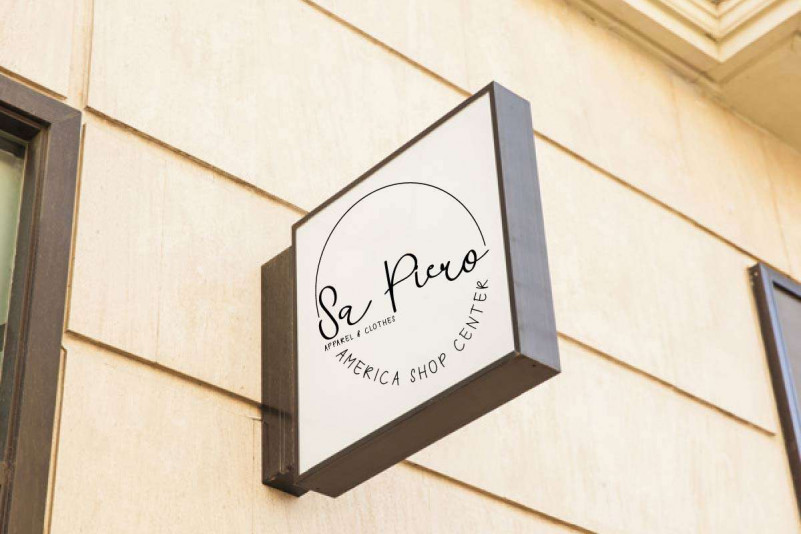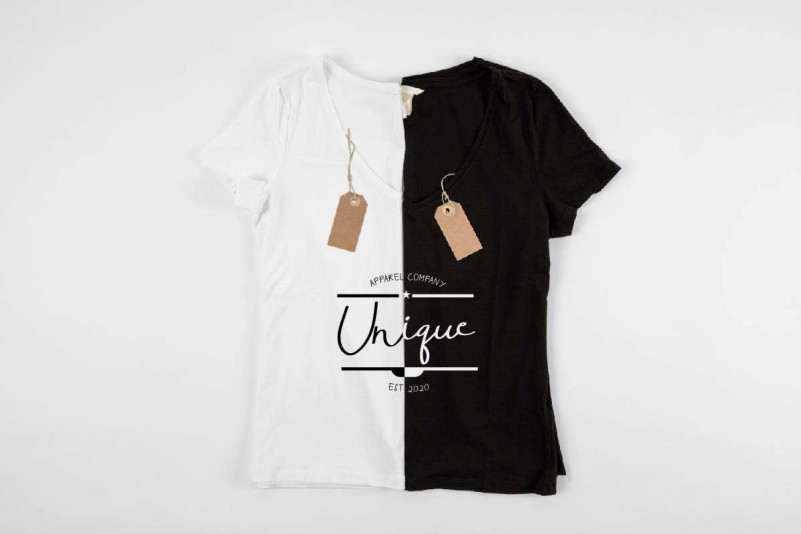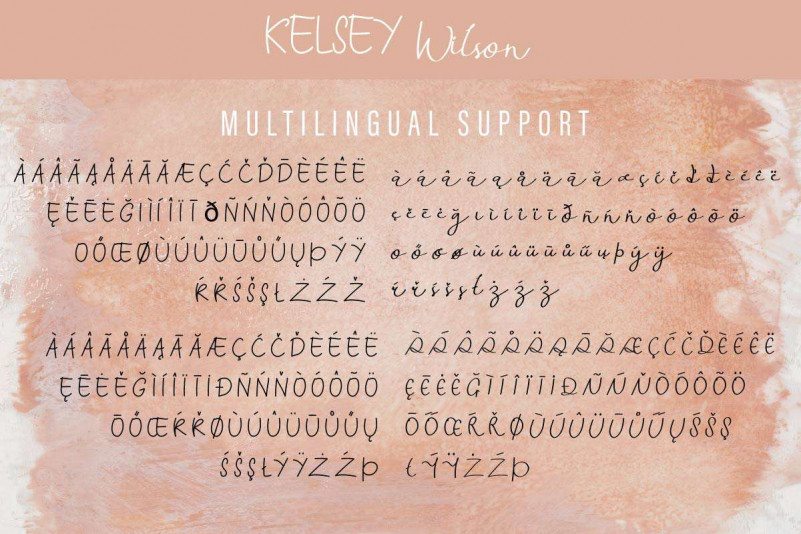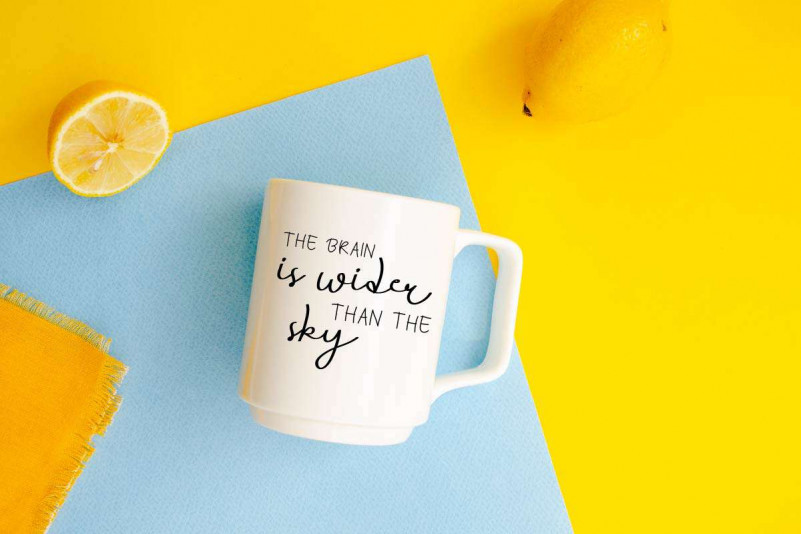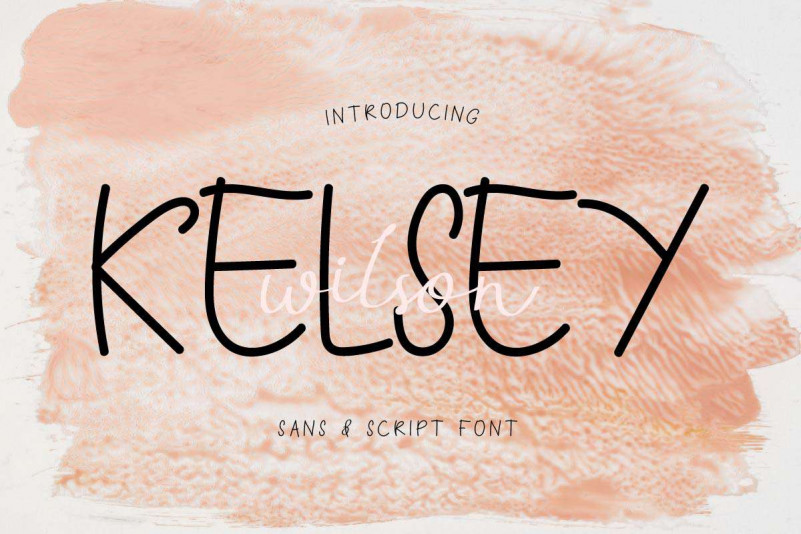
Kelsey Wilson Font Duo
Please welcome! Kelsey Wilson Font Duo This is our newest font from two of our lovely artists : Yasri and Suci. This is a duo typeface, handcrafted from our Studio. Situated here in Garut and Bandung, Indonesia.
Kelsey Wilson Font Duo is an exclusive duo typeface with unique and elegant style. The typeface has a stunning characters set, perfectly kerned and spaced. The style character of this font is elegant, stylish, sophisticated and handwriting style. Kelsey Wilson Font Duo has two styles font : Sans Display and Handwriting Script. This typefaces will be great for any projects including : branding, logo, stationery, business card, signage, flyer, brochure etc. Many all industries will be match for this typefaces: wedding, events, real estate, architect, law firm, florist, gardening, makeup artist, travel, hotel, musician etc